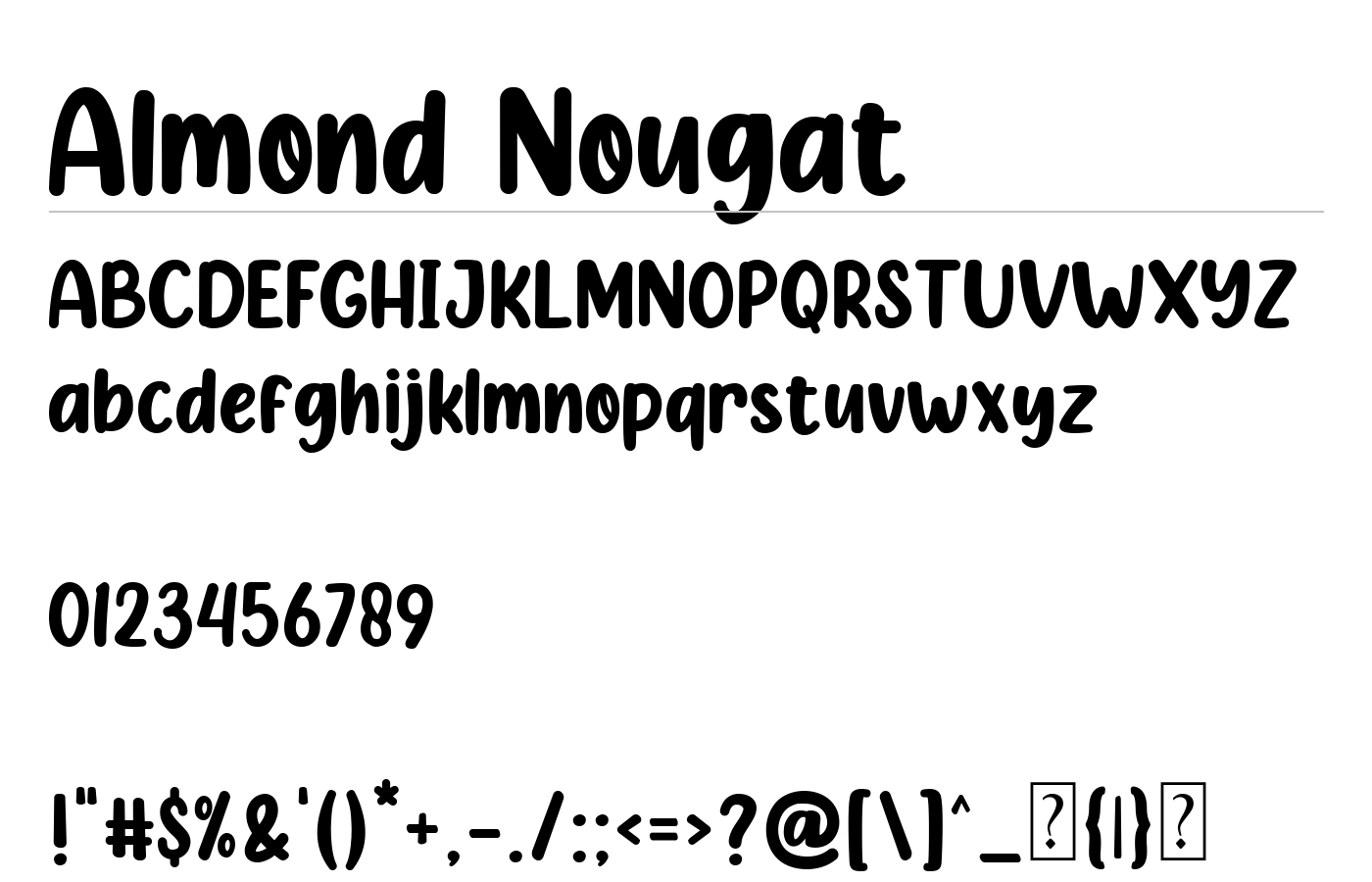
Almond Nougat is a playful and friendly handwritten sans serif font with rounded edges and a casual, inviting feel. Its medium weight and moderately high x-height make it legible and approachable, ideal for conveying warmth and creativity. This font works well for informal branding, children’s products, packaging, and any design needing a cheerful, hand-crafted touch.
Almond Nougat Font
About Almond Nougat Font